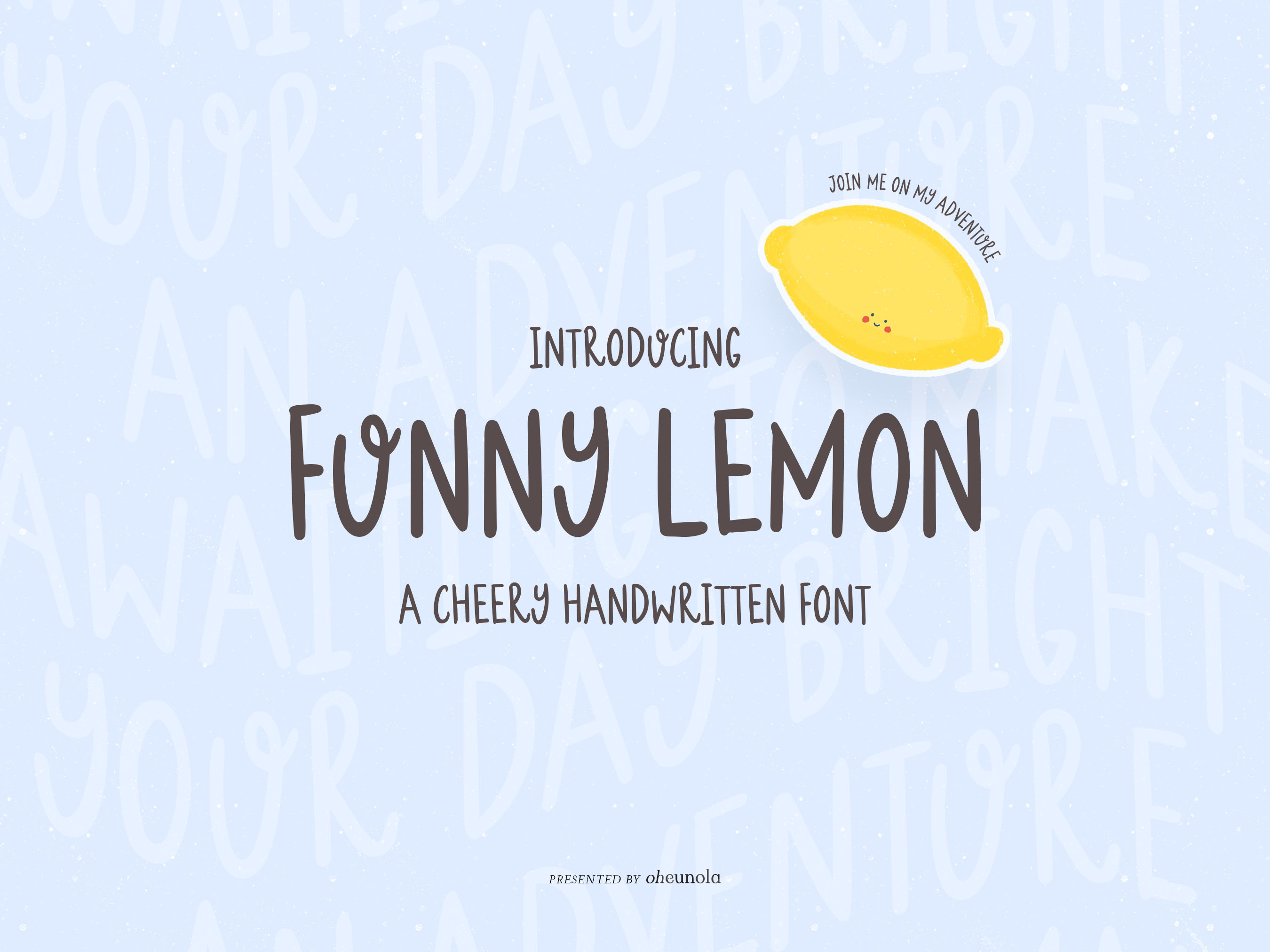
Funny Lemon Handwritten Font
Introducing Funny Lemon - a cheery handwritten font perfect for brightening someone's day. It is a versatile fun font great for greeting cards, books, posters ... anything under the sun to share happiness.